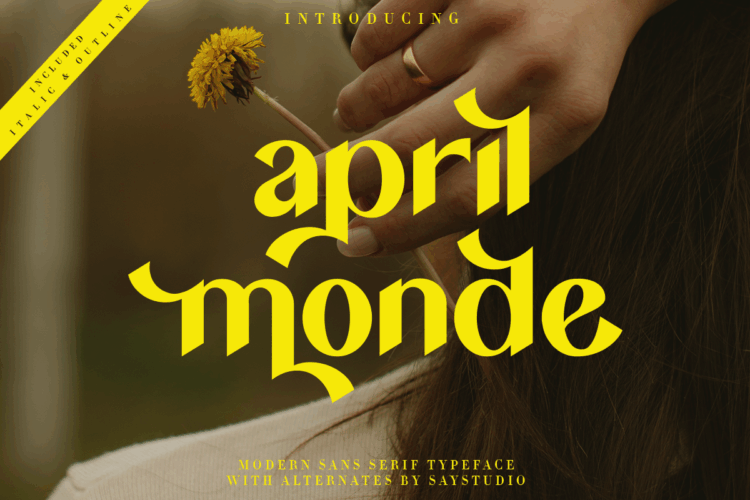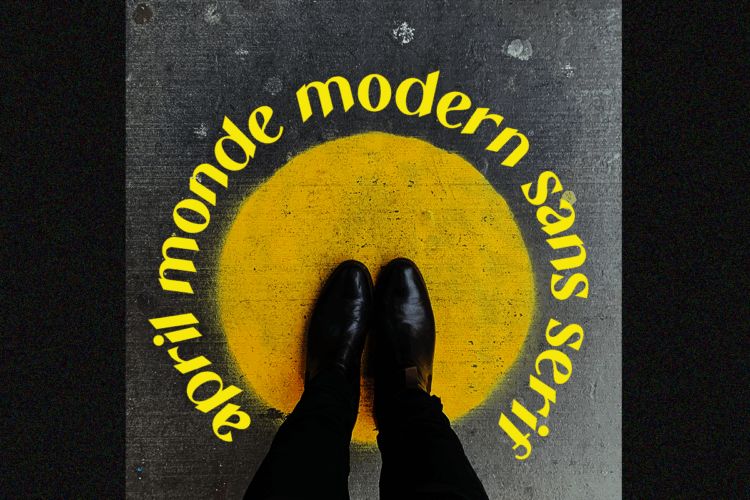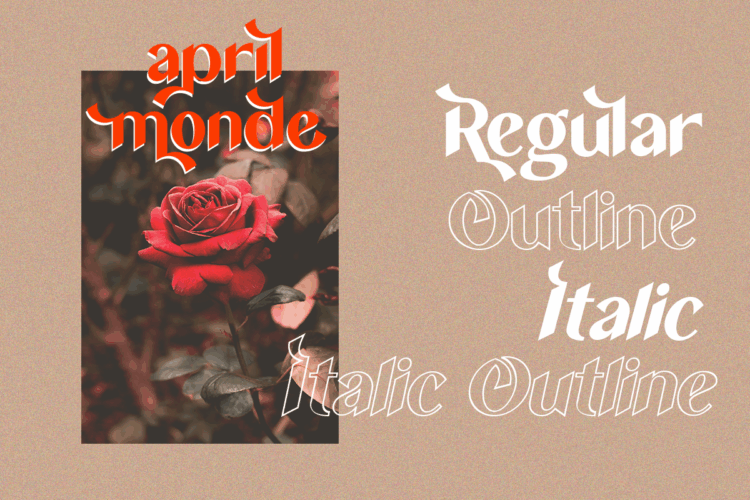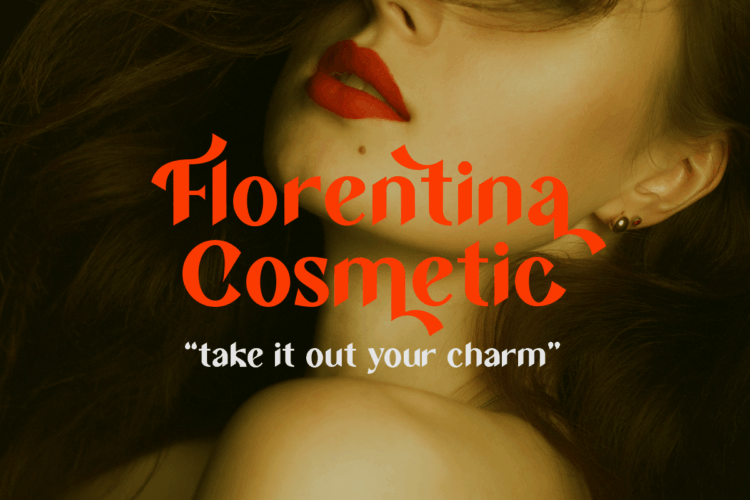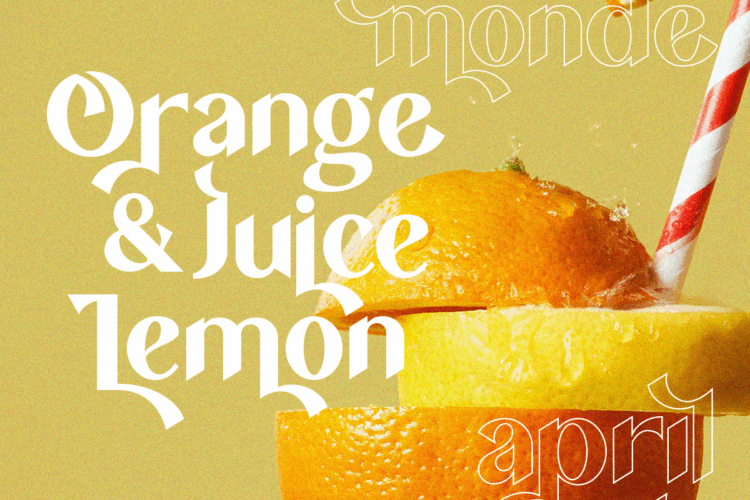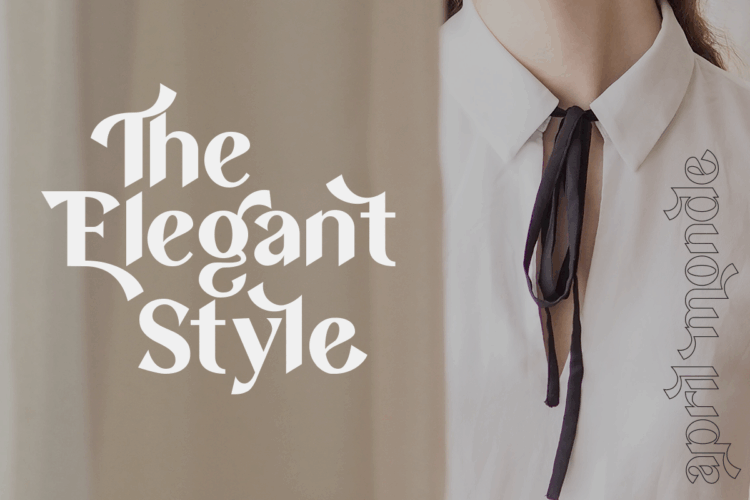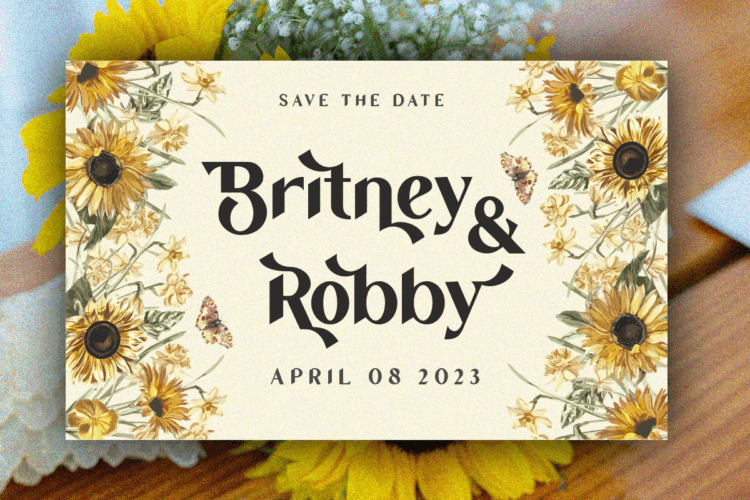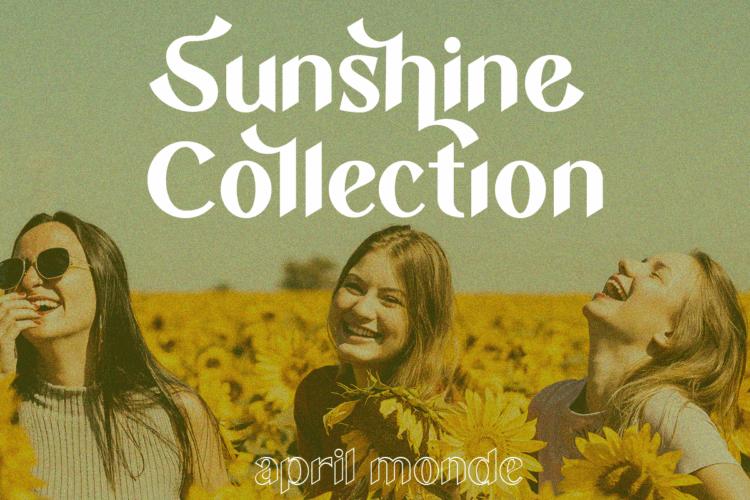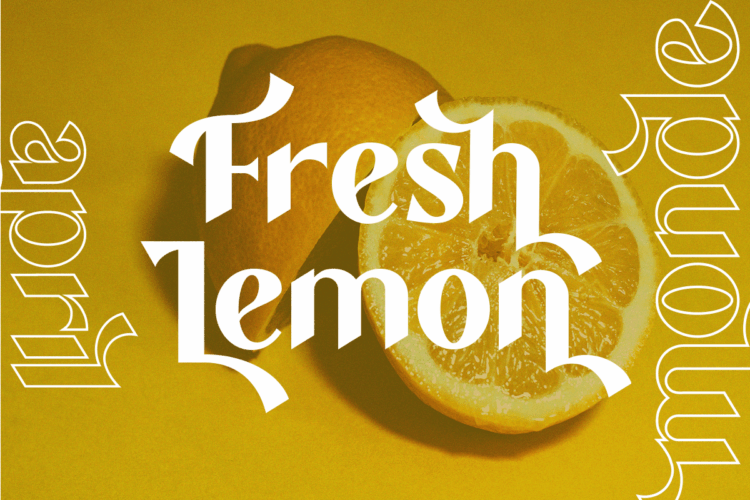
April Monde
April Monde is modern sans serif typeface, with regular, italic and outline style. The elegant modern font creates a unique design and is sure to steal the eye of the design target audience. Besides being unique, the April Monde font also has a luxury simple character that makes the design charming and luxurious.
These a fonts are perfect for designs with the concept of elegant, luxury, romance, fashion and so on.
• Stylistic Alternates